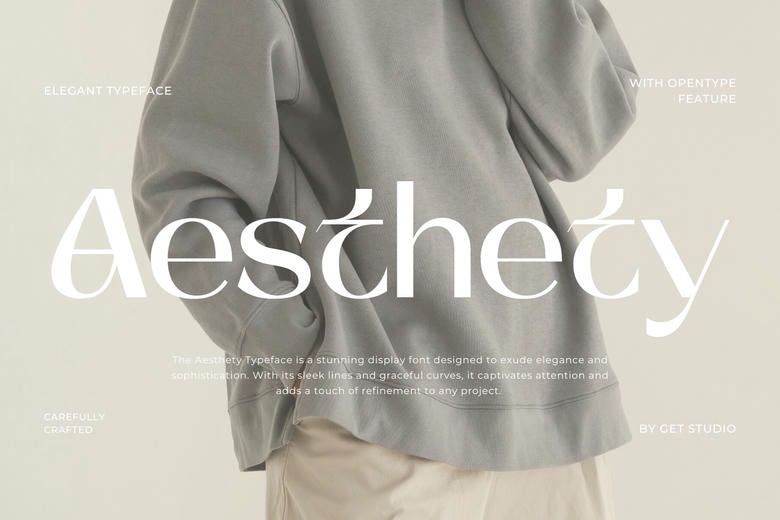
Aesthety Font
Aesthety is a display font that adds elegance and sophistication to your work. Its clean lines and smooth curves catch the eye and give any project a polished look.
This font works well for branding, headlines, or invitations. It combines style and readability, so it’s a flexible choice for anyone who wants to add a stylish touch to their designs.